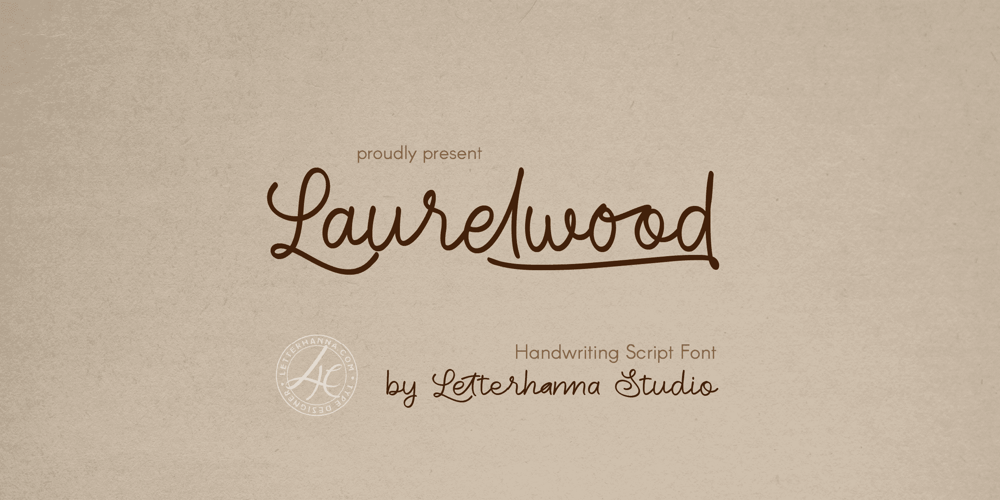
Laurelwood Font Family was designed by Rinaldo Hasibuan and published by Letterhanna Studio. Laurelwood contains 1 styles and family package options. Unveil the timeless elegance of Laurelwood, our newest typeface inspired by the enduring beauty of natural wood. Laurelwood’s design embodies a classic and sophisticated aesthetic, with clean lines and subtle variations that echo the organic textures of its namesake.This versatile font is perfect for crafting a touch of distinction in your design projects. Whether you’re creating logos, branding materials, or elegant invitations, Laurelwood adds a touch of natural refinement that will leave a lasting impression.